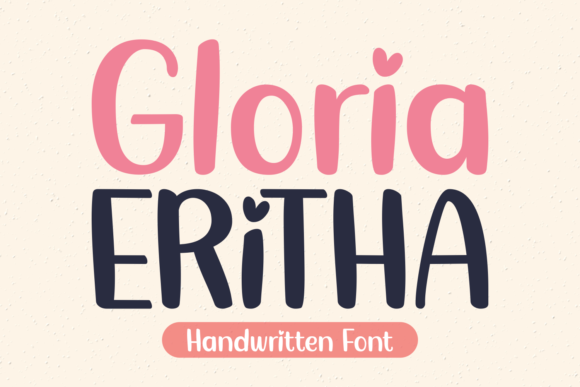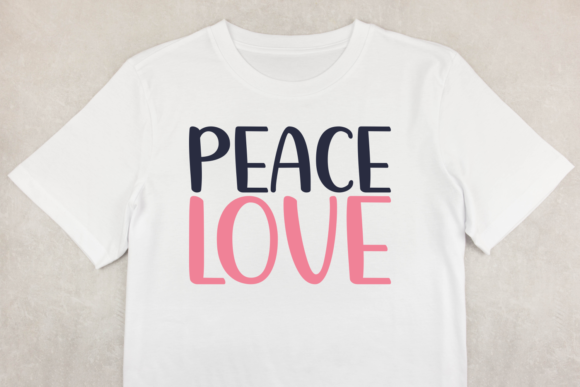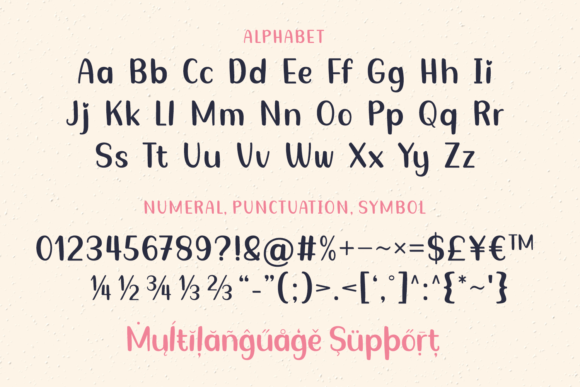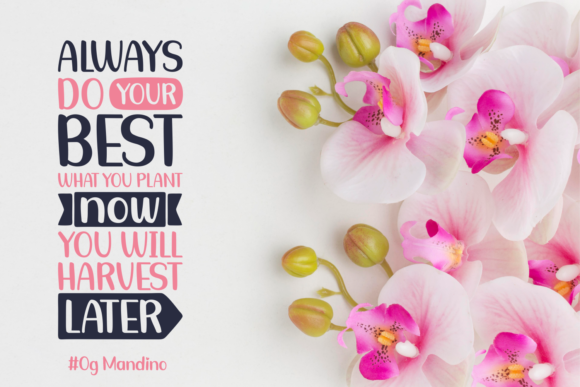
Gloria Eritha Font
About Gloria Eritha Font
Gloria Eritha is a lovely handwritten typeface featuring heart elements in select characters. Its simple and sweet nature will surely bring a personal touch to your next project! This font is compatible with cutting machines such a Cricut and Silhouette.